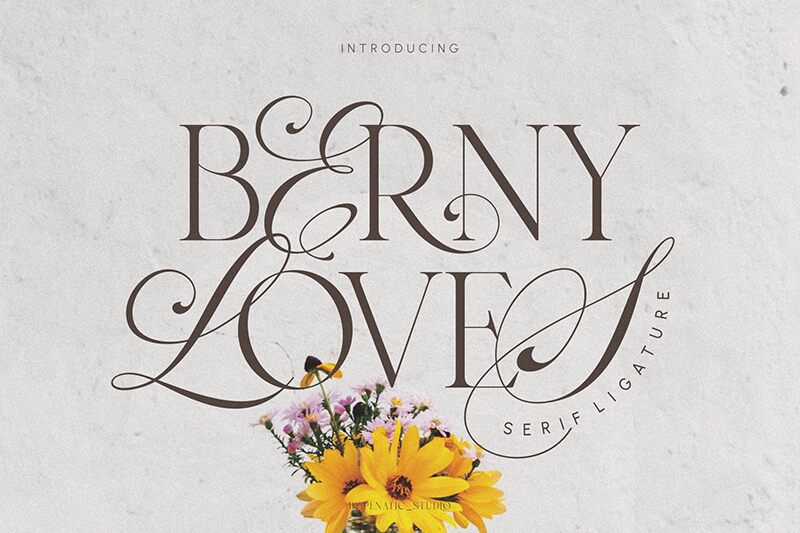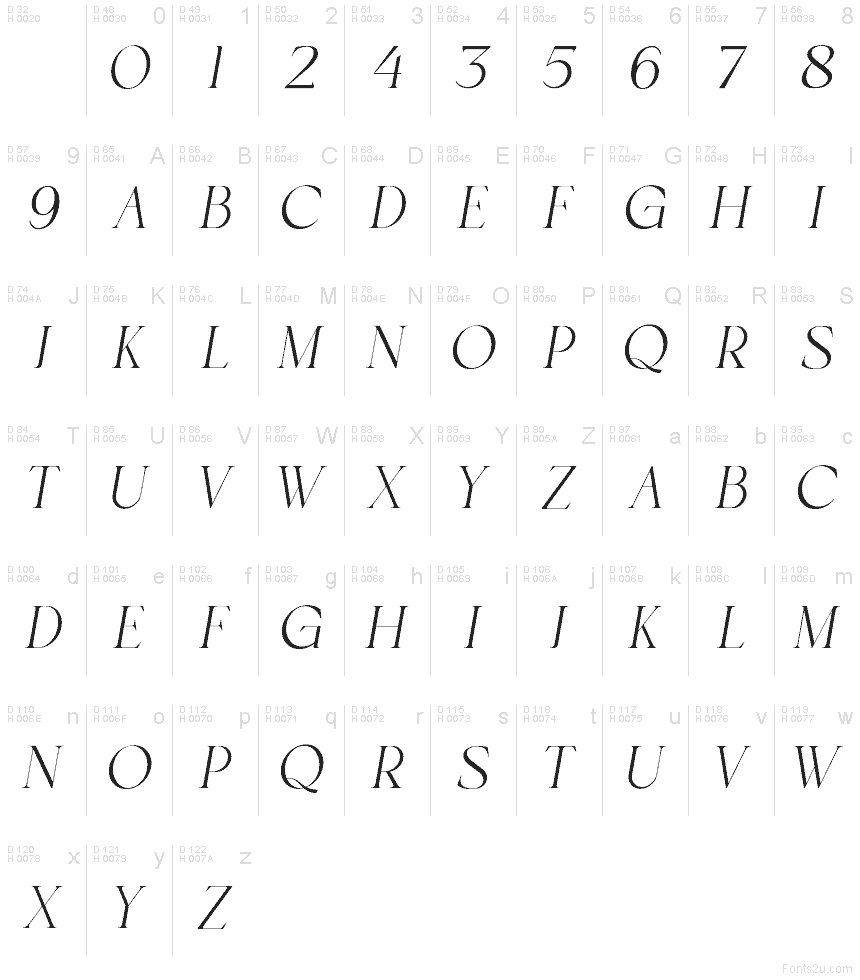
BERNY LOVES Italic
Berny Loves Italic font by Penatic Studio is a free italic serif font. Part of the Berny Loves family, it leans into a silky, long-leaning rhythm—the kind of graceful slant that makes headlines feel handwritten without looking fussy. Sharp, fine strokes meet crisp, tapering endings, giving each word a whispery sheen that reads luxurious yet controlled.
Using Berny Loves Italic, you’ll get instant polish for wedding invitations, save-the-dates, boutique logos, perfume or skincare branding, magazine pull quotes, and elegant social posts. The airy proportions create breathing room at larger sizes, while the fine details keep text feeling feather-light and refined. Pair this free font with a restrained geometric sans for body copy, and let the italic do the shimmering, expressive work up top.